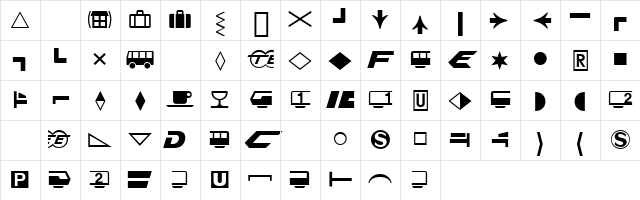
BundesbahnPi2 Roman
Design Context for BundesbahnPi2
BundesbahnPi2 is a composed and adaptable typeface that performs quietly and consistently across a wide range of design contexts.
Pro Tip: Use BundesbahnPi2 in both headline and body roles to test its range before committing to a single application.